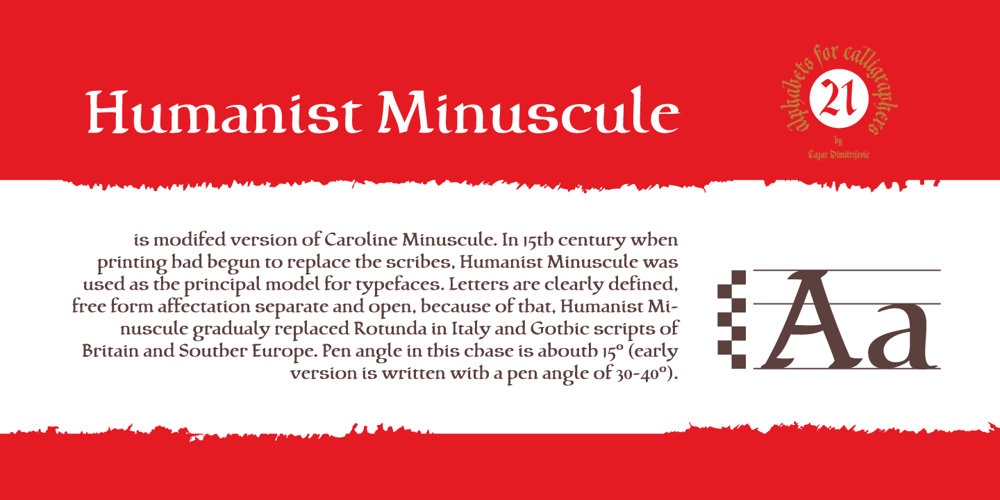
Cal Humanist Minuscule Font Family was designed by Lazar Dimitrijević and published by Posterizer KG. Cal Humanist Minuscule contains 1 styles and family package options. Calligrapher Humanist Minuscule Font, is one of the calligraphic group of fonts called “21 Alphabets for Calligraphers“. All graphemes are taken from calligraphic pages written in traditional Humanist Minuscule calligraphic style. This font is ideal for calligraphic sketches or for imitation of ancient manuscripts. Font contains all the Latin glyphs.